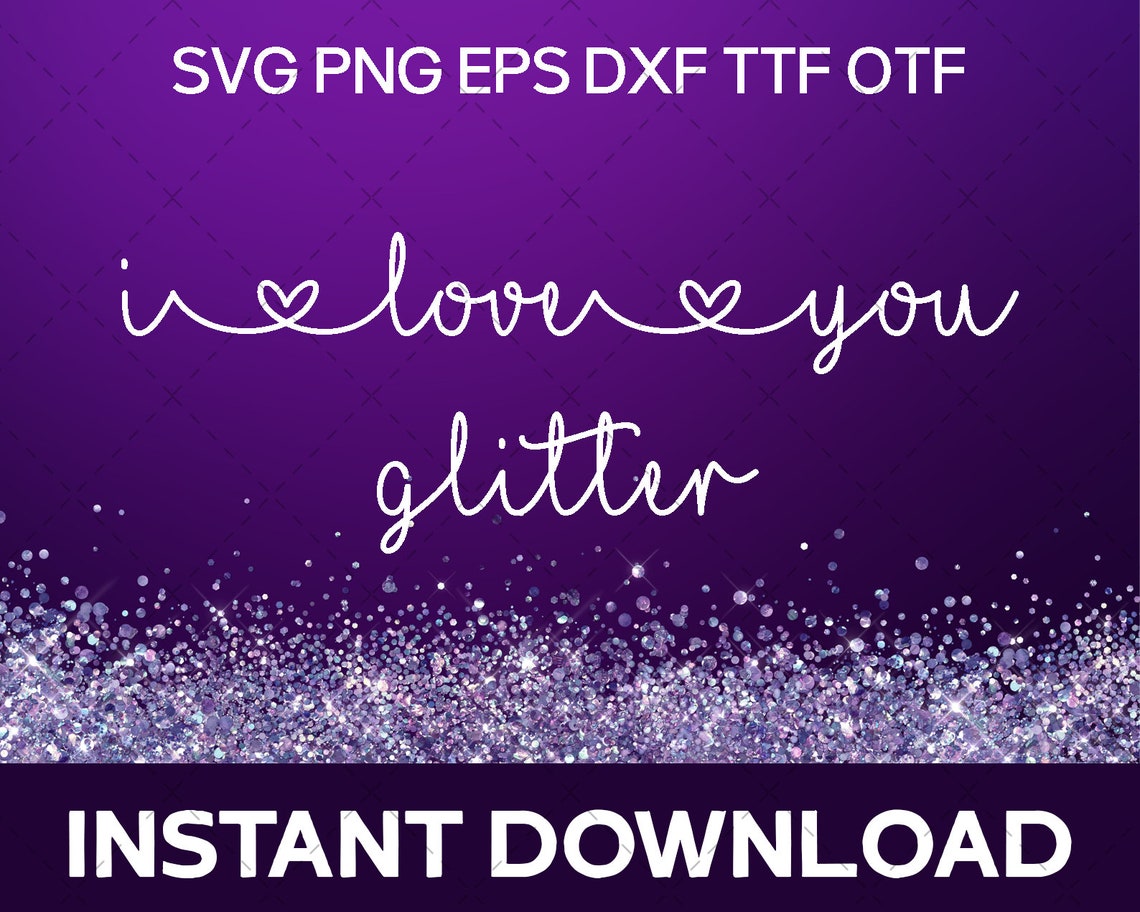
Font I Love Glitter
Font I Love Glitter - Web i love glitter font, also known as mf i love glitter is a whimsical and captivating handwritten typeface that exudes charm. 3,483,173 downloads (434 yesterday) 75 comments. Web mf i love glitter à € by misti's fonts.